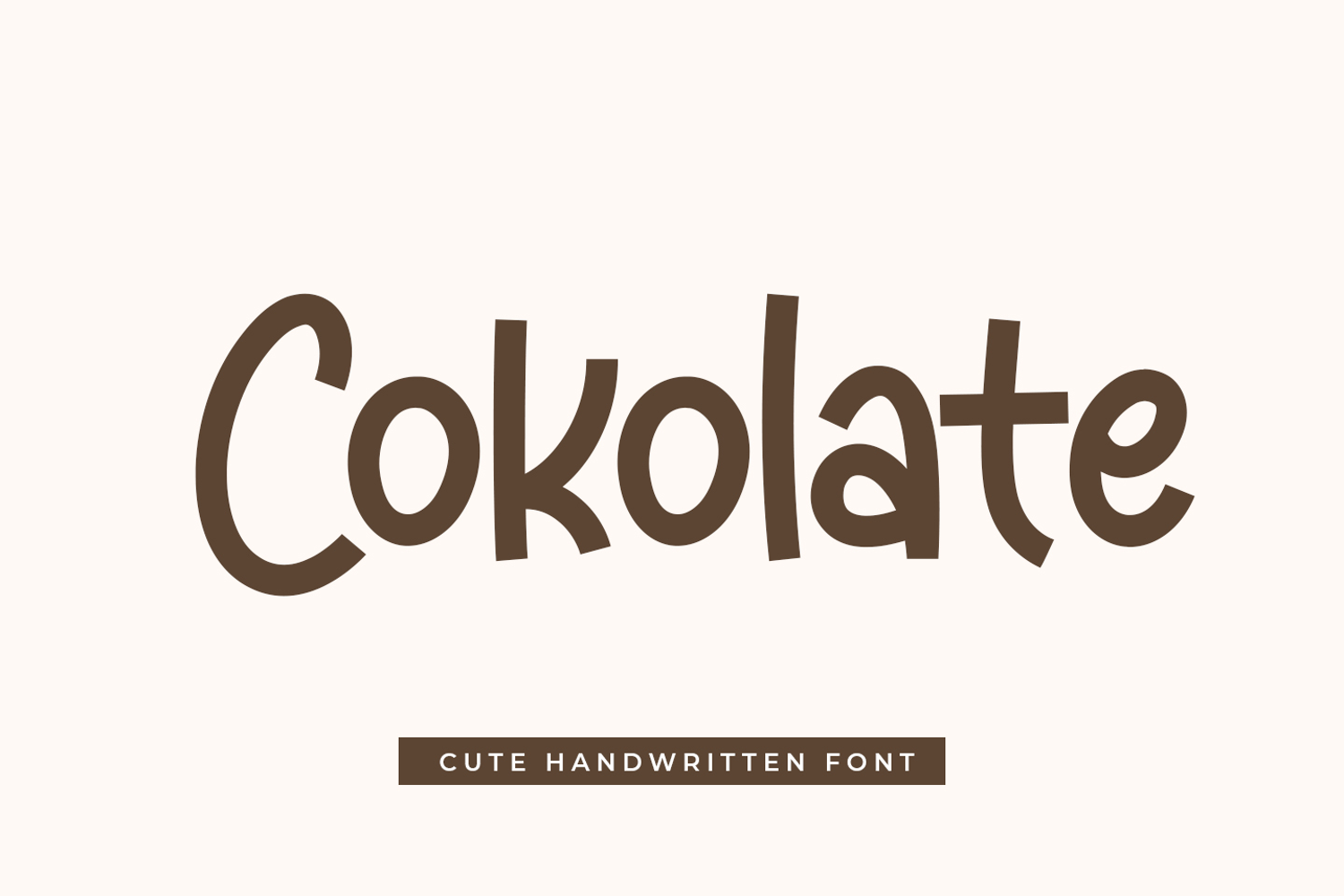
Cokolate
introducing
COKOLATE
- cute handwritten font-
COKOLATE is playful display font.
It is great for branding, quotes, logos, t-shirt designs, tote bag designs, cards, banners, social media, and more.